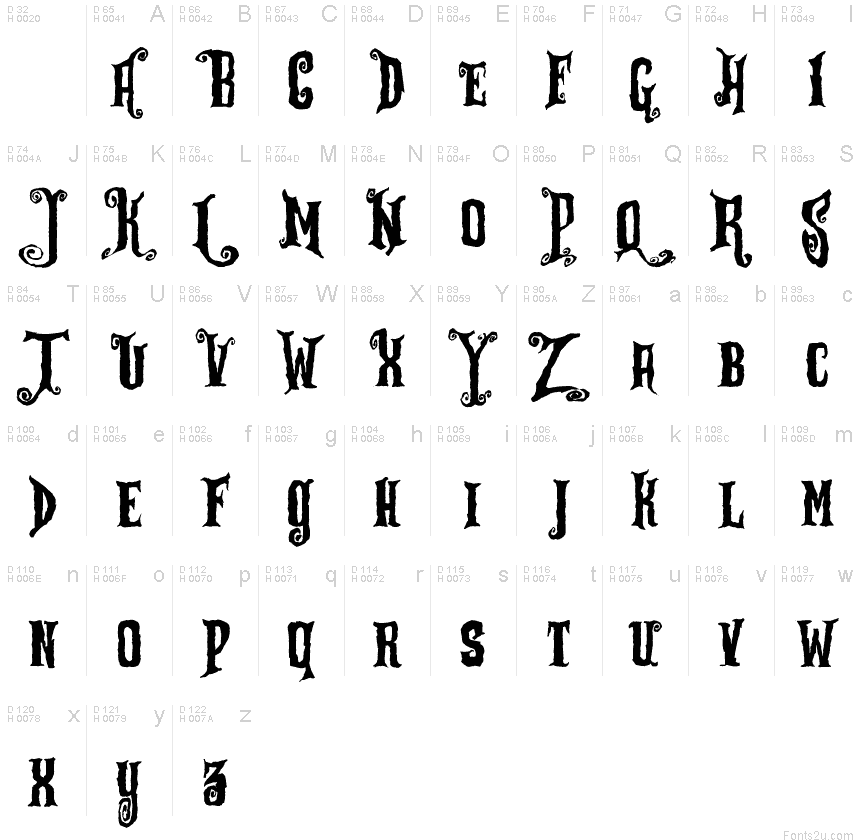
Zu Kabarett Destroy by Imagex is a free creepy decorative display font with crooked, towering letters and a rough cut-paper edge. Sharp notches, torn-looking strokes, and small curled tips give the alphabet a theatrical menace rooted in Gothic show lettering.
Horror posters are its clearest home, where the jagged silhouettes can become part of the threatening imagery. The same ragged style suits haunted-attraction signage, metal album covers, and Halloween merchandise. It is aimed squarely at audiences who enjoy campy horror, dark cabaret, and exaggerated monster graphics.
Zu Kabarett Destroy by Imagex is a decorative font.